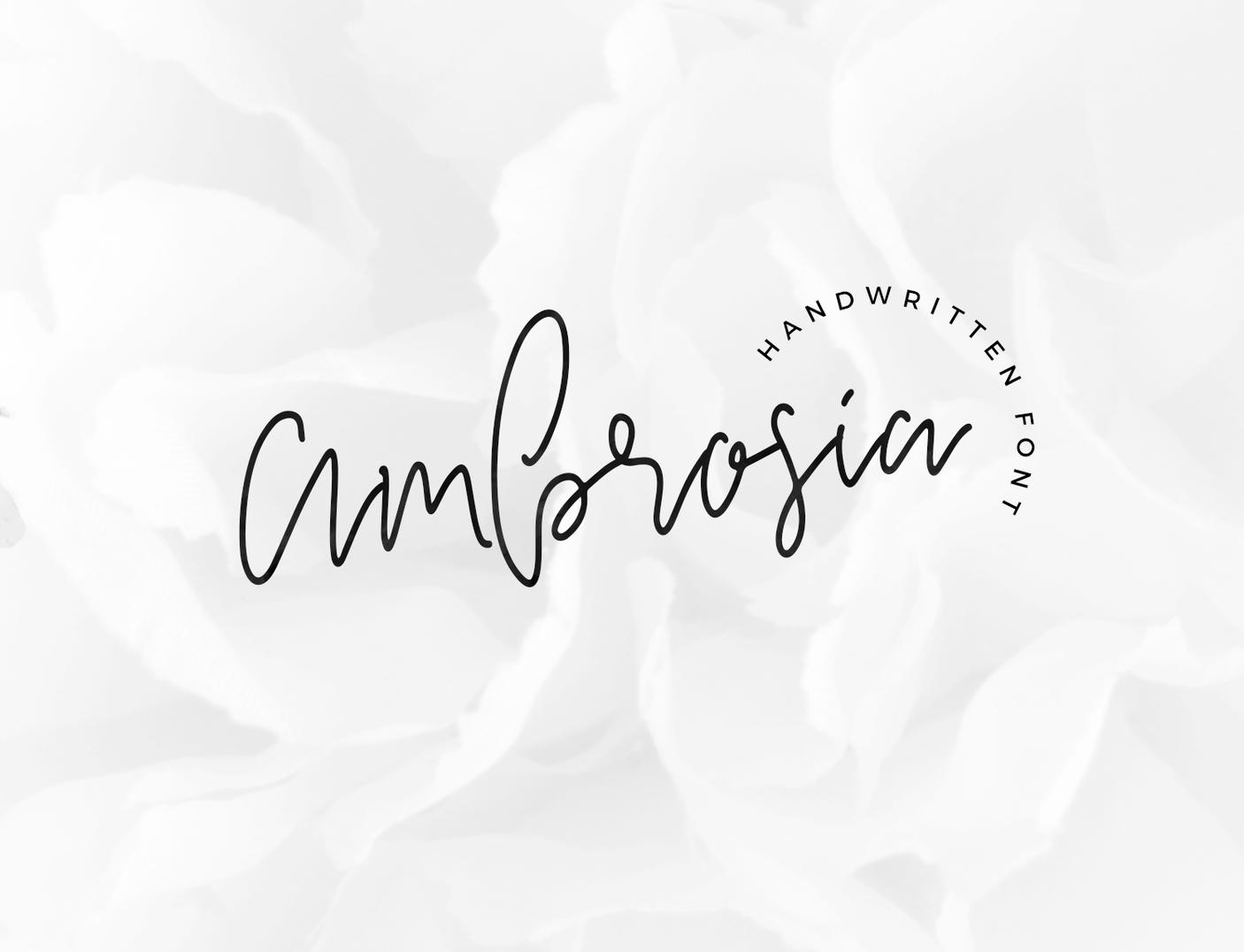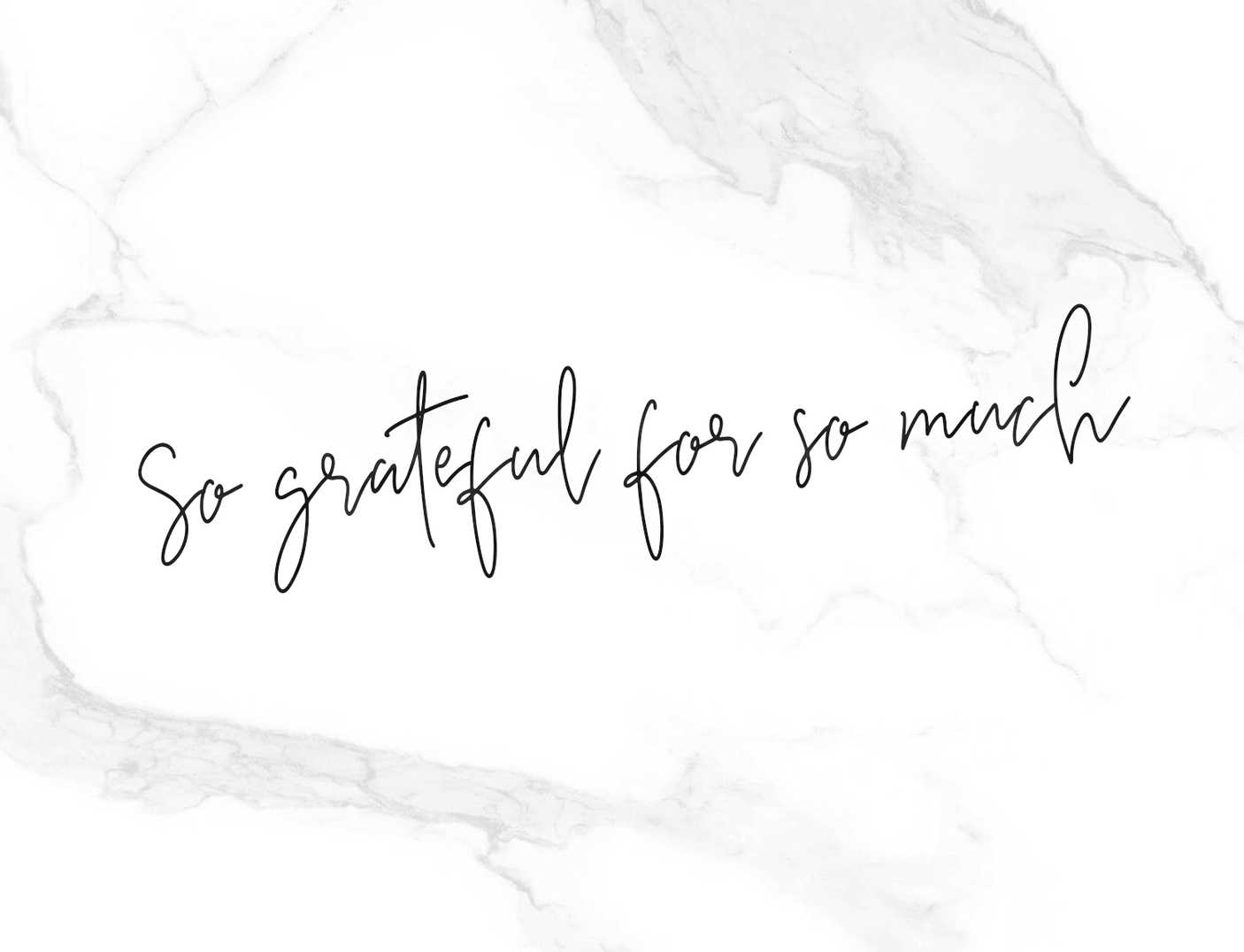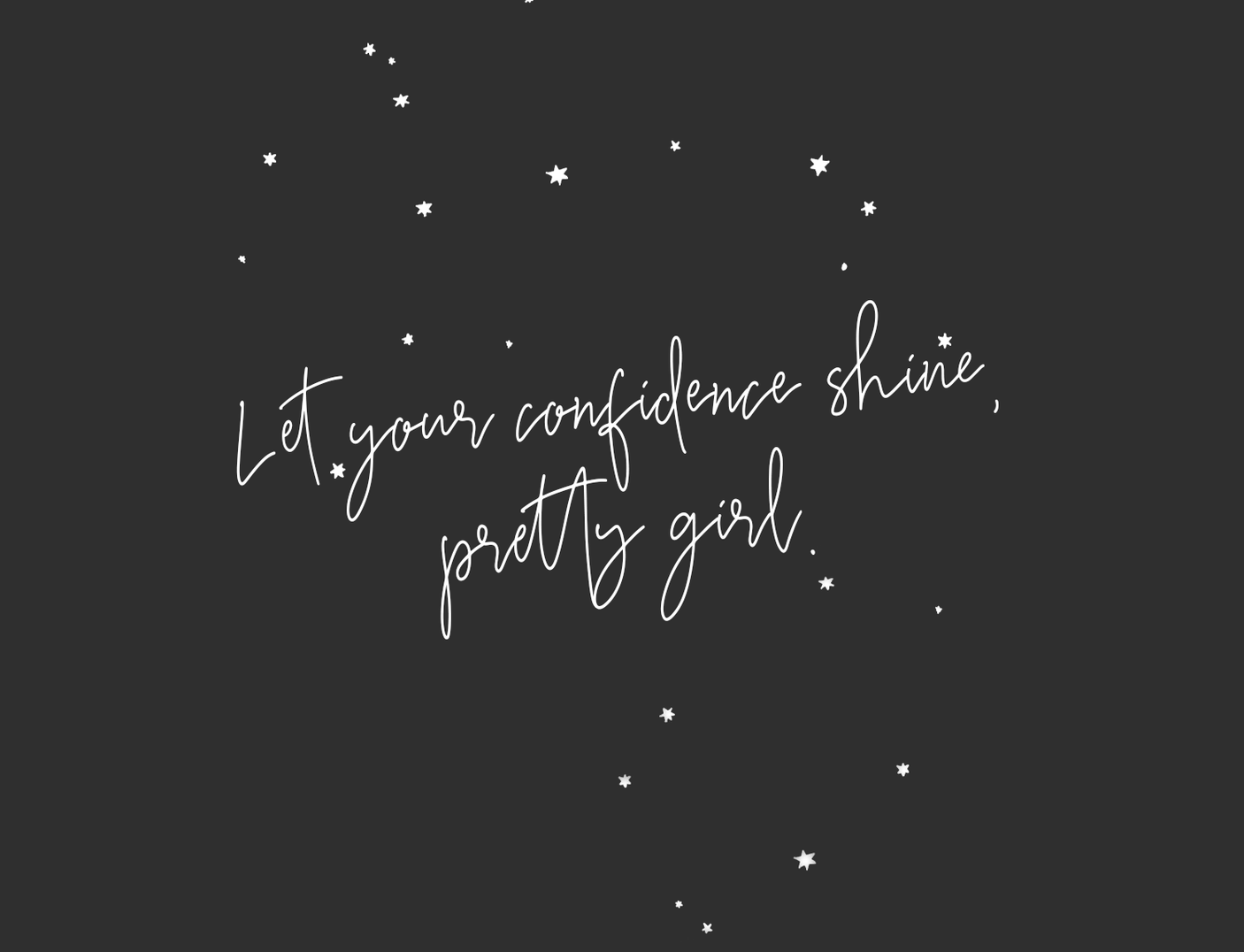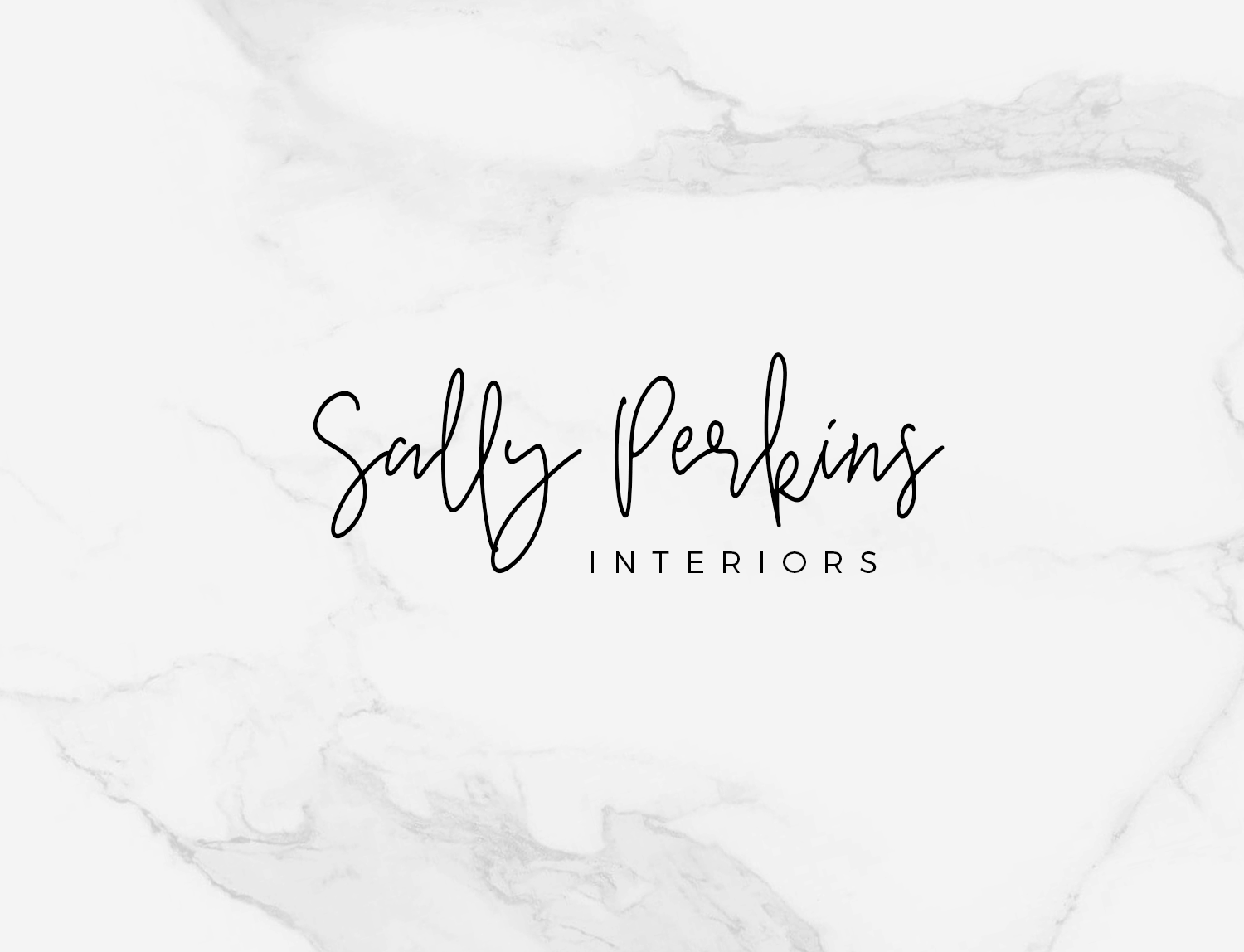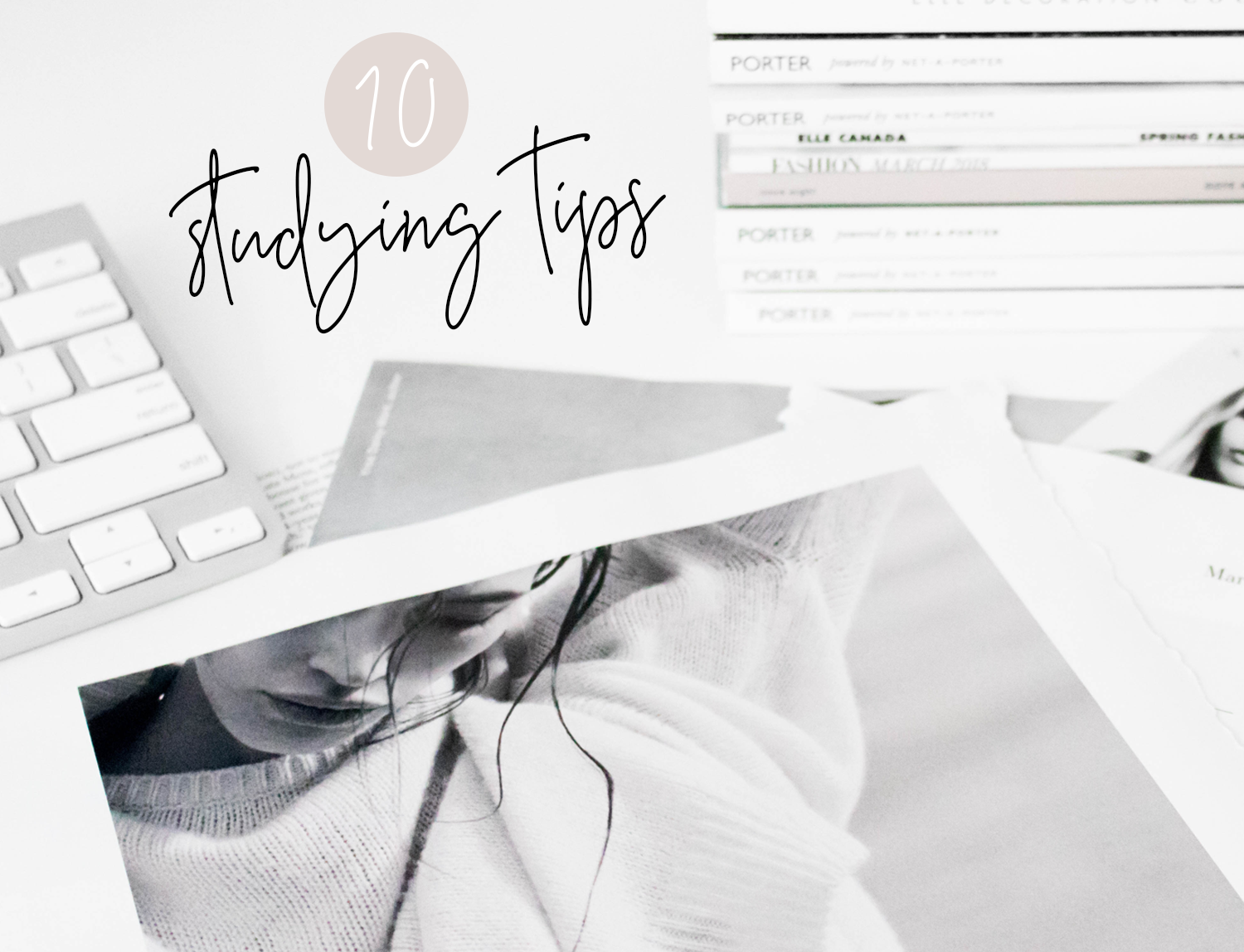
Ambrosia Font
Ambrosia font is a stylish handwritten script for trendy design projects who need scribbled handwriting text. Enhance your designs with its sophisticated and exclusive tone, reminiscent of the world of art and fashion.